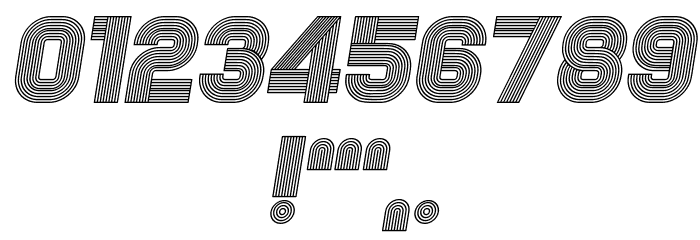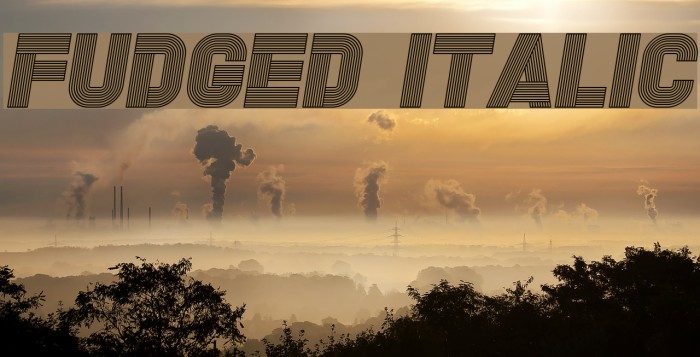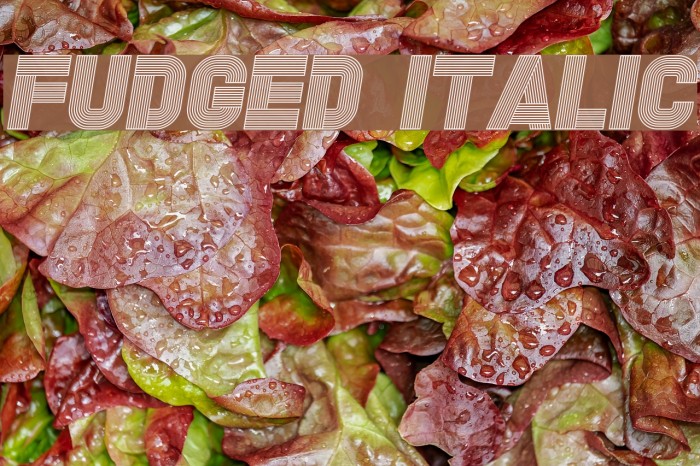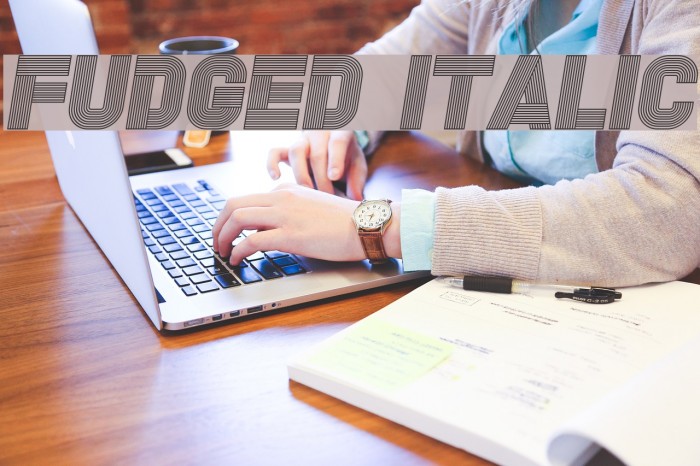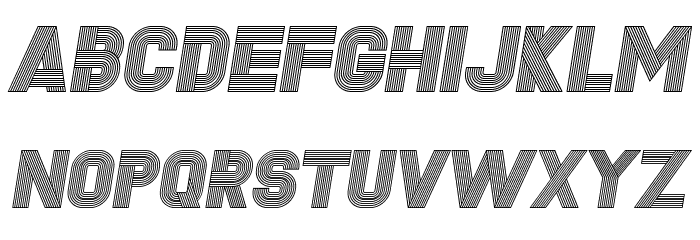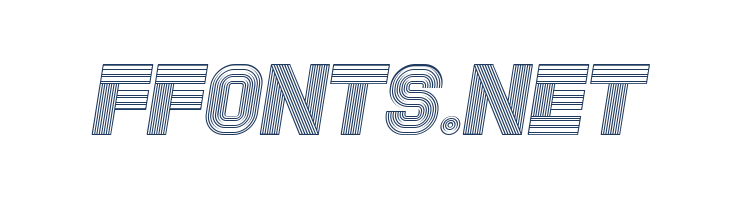
Fudged Italic Font
Fudged Italic Description
This font features a dynamic and modern design with a distinct italic slant, creating a sense of movement and energy. The characters are composed of multiple parallel lines, giving a layered and textured appearance. This unique style adds depth and dimension, making it stand out in any design. The uppercase and lowercase letters maintain a consistent style, while the numerals and special characters complement the overall aesthetic. The font's geometric structure and bold presence make it suitable for eye-catching displays.
Proposed ProjectsIdeal for branding, posters, and headlines where a bold, modern statement is needed.